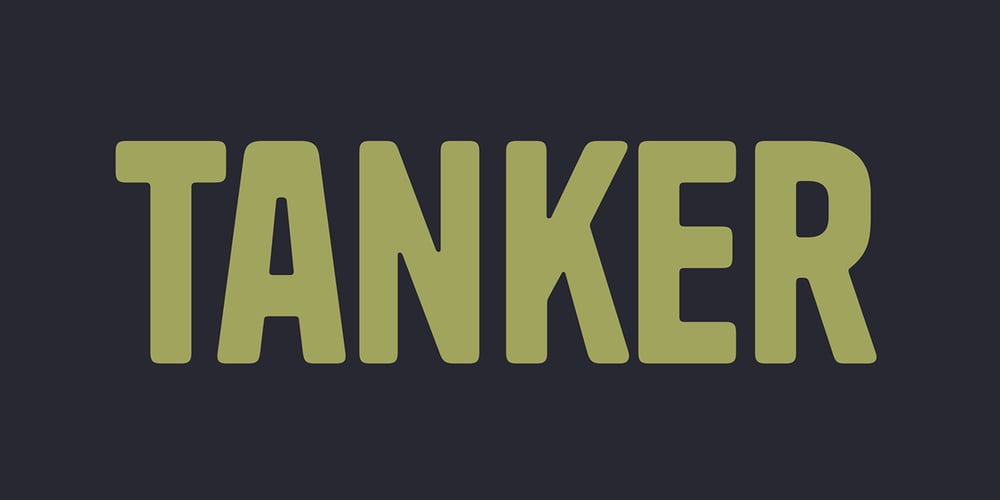
Tanker Font Family was designed by Ruosi Huang and published by Indian Type Foundry. Tanker contains 1 styles and family package options. Tanker is a single-weight, uppercase-only, condensed sans serif. The ‘caps’ saved onto the font’s lowercase keys are of a different design that those you’ll get when you press the uppercase keys. So the font has two different versions of each letter for users to choose from, really. The ‘lowercase’ caps have more-traditional sans serif forms, while the ‘uppercase’ caps appear more experimental and dynamic. Like the letters, the font also has two sets of numbers. The second, alternate set of numbers is available via an OpenType Stylistic Set. All of the corners on Tanker’s characters are rounded off. This gives them a soft feeling, despite the weight of the characters themselves being somewhat heavy. Tanker is designed by Ruosi Huang.